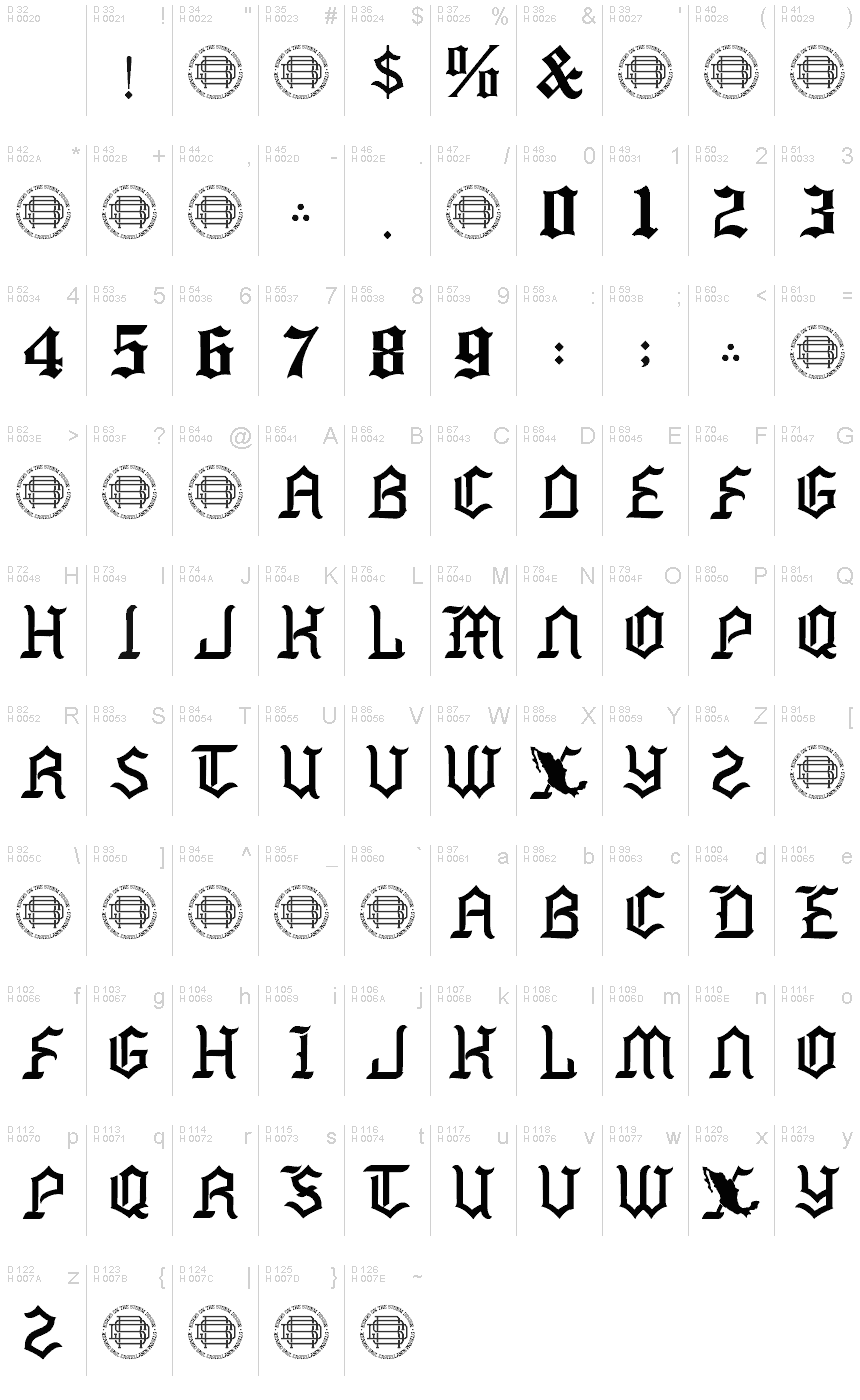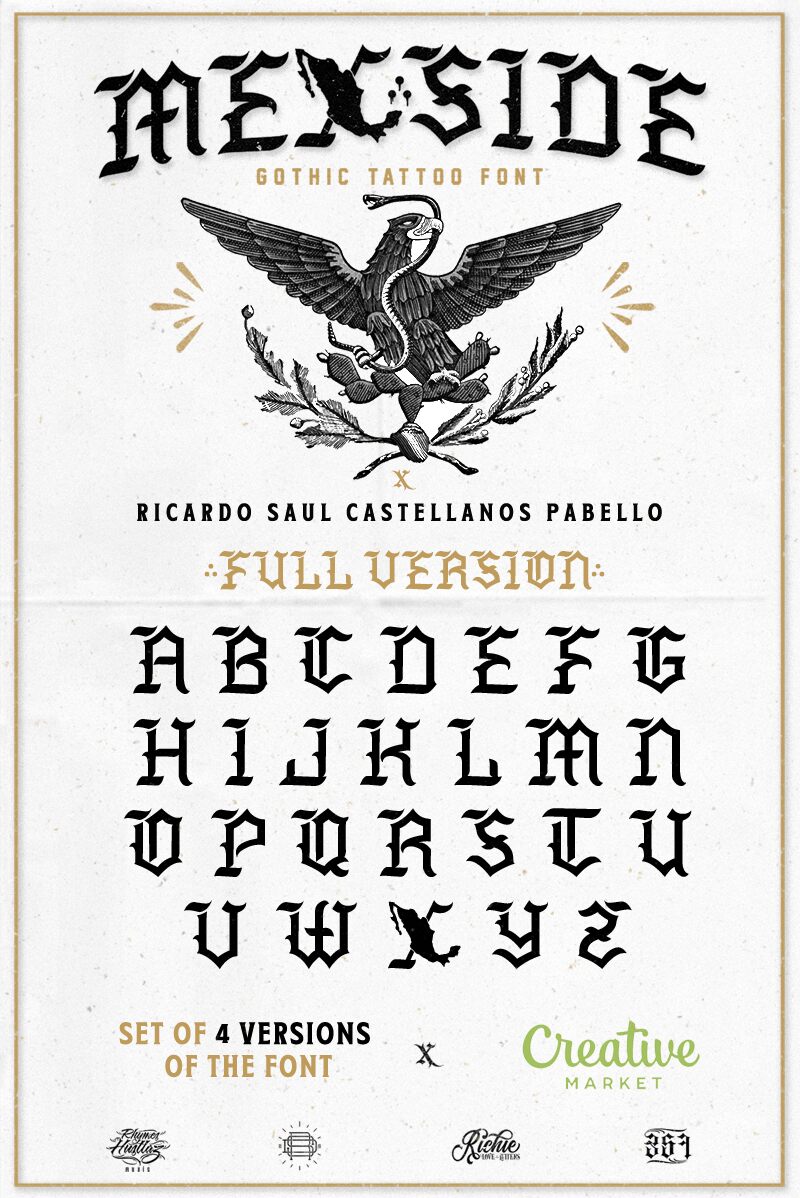
Mexside Demo
MEXSIDE is a bold, modern gothic font that exudes an edgy, industrial charm. Its sharp, angular letterforms and striking negative spaces create a striking visual impact, evoking a sense of strength and contemporary flair. The font's distinctive aesthetic lends itself well to a variety of applications, from bold headlines and impactful branding to gritty urban designs and cutting-edge editorial layouts. MEXSIDE's versatility and visual impact make it a compelling choice for designers seeking a font that effortlessly blends tradition and innovation.
Crafted by designer Richie Mx, MEXSIDE's sleek, minimalist style is a testament to the power of simplicity in typography. Its clean lines and well-balanced proportions ensure legibility across a range of sizes and media, making it a versatile choice for both print and digital projects.
Mexside is a typeface inspired by the style of letters of the urban culture of Cholos / Gangs, designed by Ricardo Saul Castellanos Pabello "Richie Mx" in the design studio "Riders on the Storm Design."